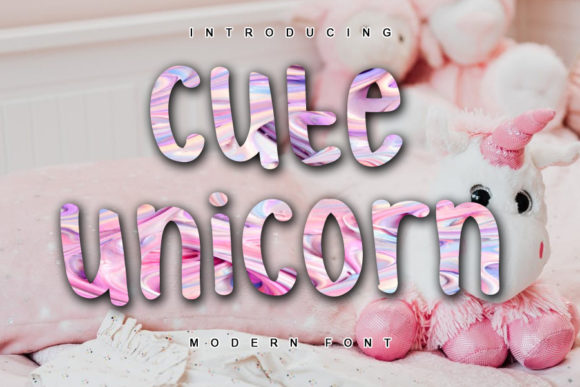
Come step into the world of imagination and smiles with the latest Cute Unicorn Font family. This extraordinary script font style, designed by the renowned ABBAsalam, has set a new standard for branding fonts. Cute Unicorn is not just a font; it's a playful burst of creativity that complements your designs beautifully.
Escape the mundane and unleash the magic of handwritten typography with Cute Unicorn. Its endearing style is meticulously crafted to evoke a sense of joy, fitting all kinds of designs, from cards and posters to social media posts and branding projects. With Unicode support, Cute Unicorn adds a touch of charm to any language, transcending geographical barriers.
Feel the boundless freedom to express yourself with myriad styles - Cute Unicorn offers a versatile range of fancy alternatives, providing endless opportunities to construct eye-catching word art, logos, and designs that leave a lasting impression. Unleash your inner artist, let your creativity soar, and watch as your designs come to life with a captivating aura of fun and friendship.
Get ready to enchant your audience with the inherent charm embedded in every character of the Cute Unicorn font. Its natural and unique appearance makes it the ultimate choice for projects seeking to engage and captivate. Whether creating memorable branding materials, irresistible social media graphics, or heartfelt cards, Cute Unicorn ensures your designs stand out, leaving a trail of joy and positive emotions.
Don't settle for ordinary fonts; embrace the extraordinary with Cute Unicorn Font Family. Embark on a journey of creativity and capture the hearts of your audience with its playful and friendly charm. Download Cute Unicorn today and ignite your imagination with its enchanting allure.